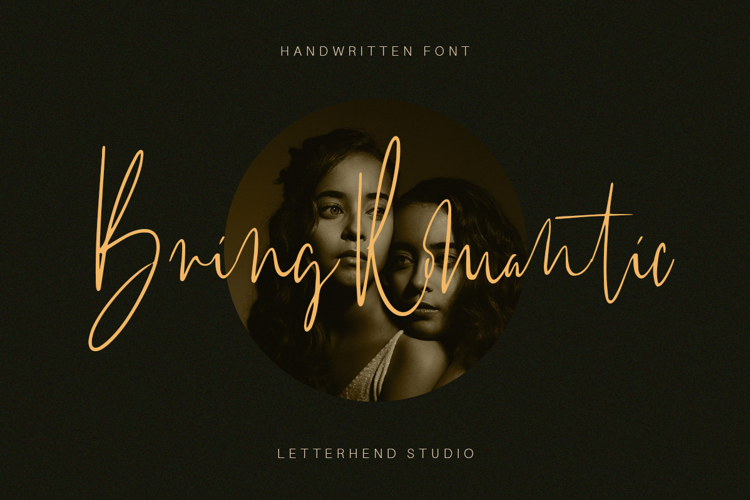
Bring Romantic Font
Introducing, Bring Romantic – a lovely wedding typeface. This font has many stylistic alternates, ligatures, swashes so you can play around with them using opentype features and creates lettering with natural touch.